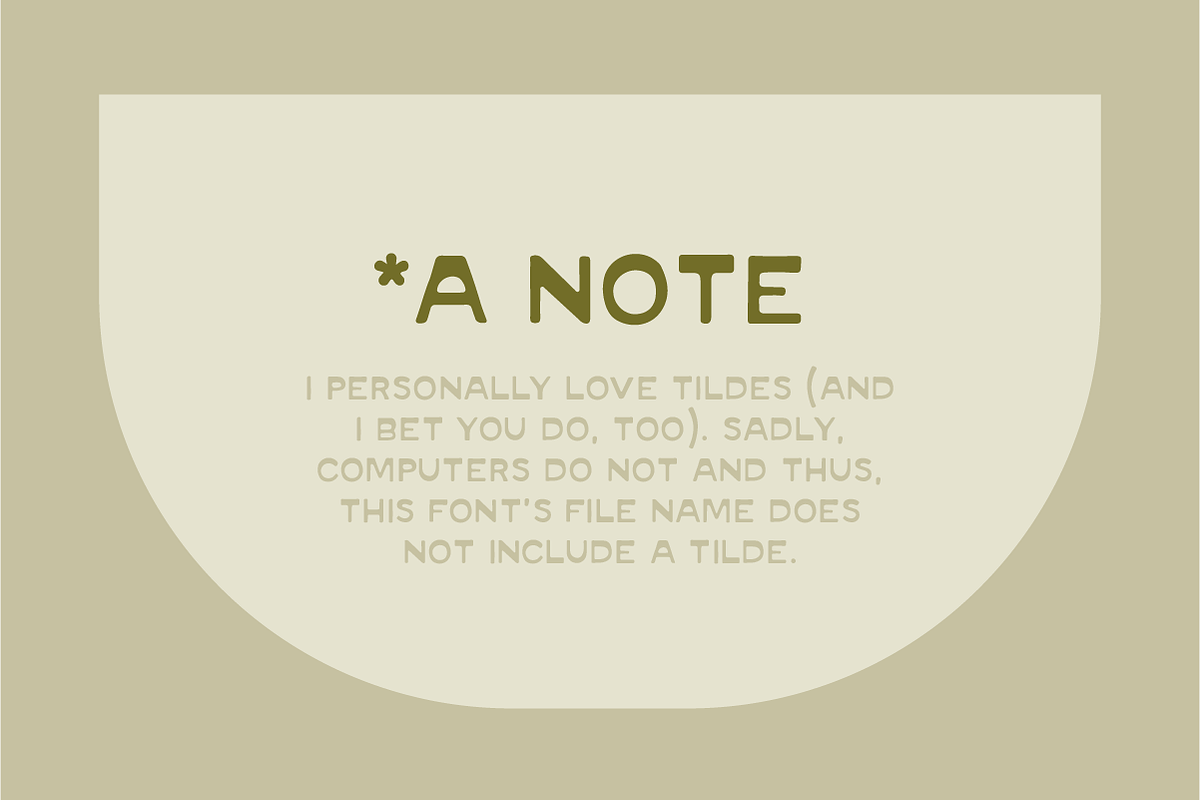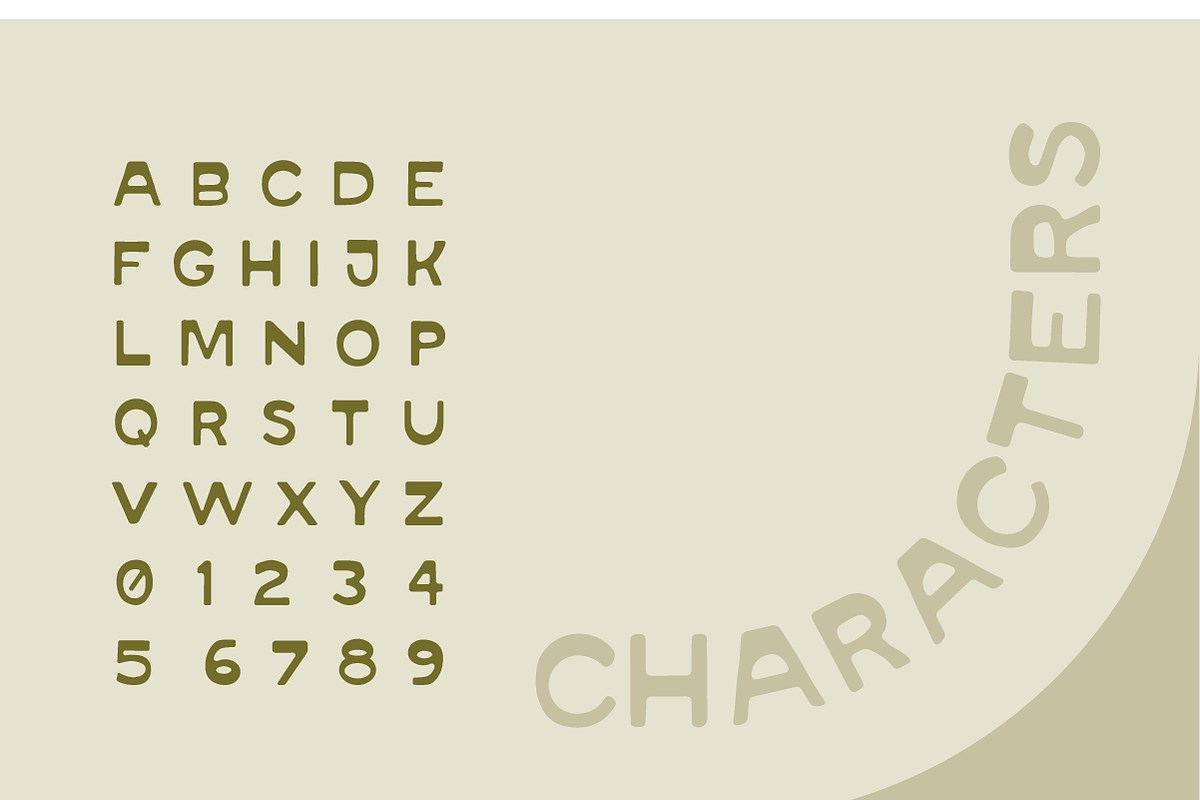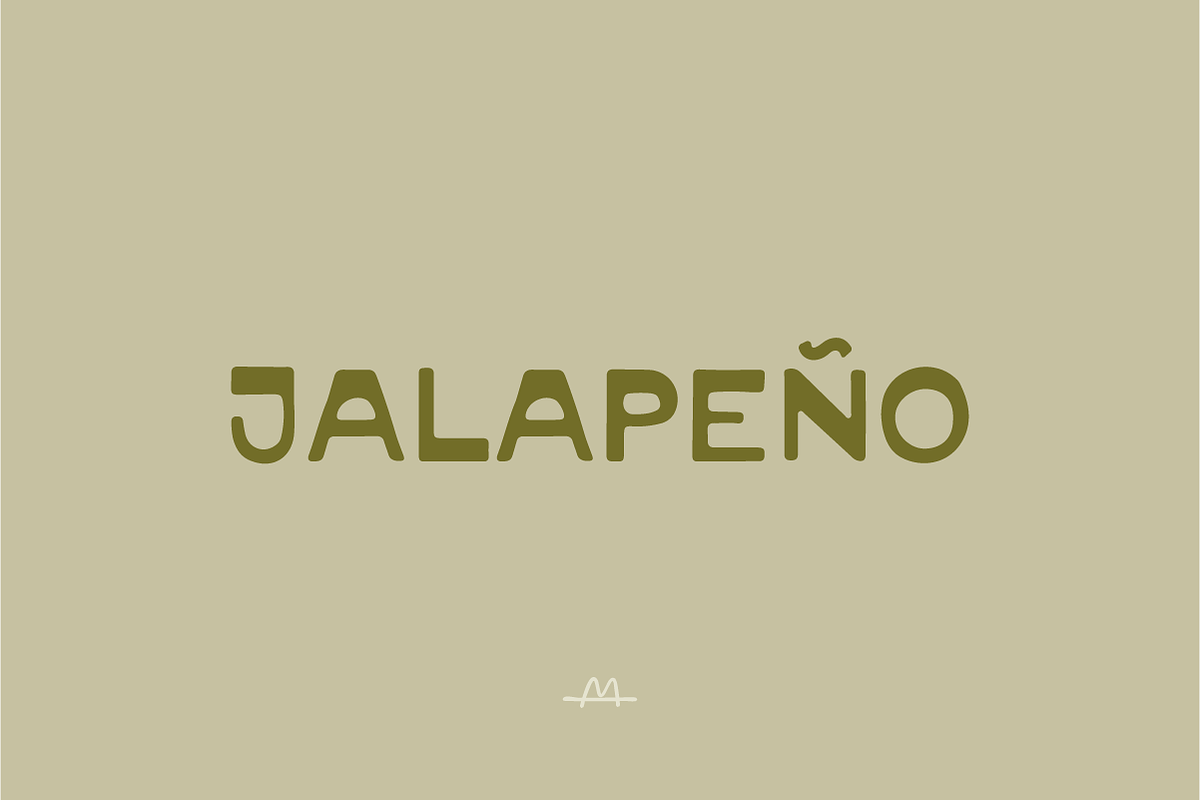
JALAPEÑO
An uppercase font with a lot of character. Its thick, bold horizontal strokes pair with slightly thinner vertical strokes. This makes it feel playful, but also very sure of itself.